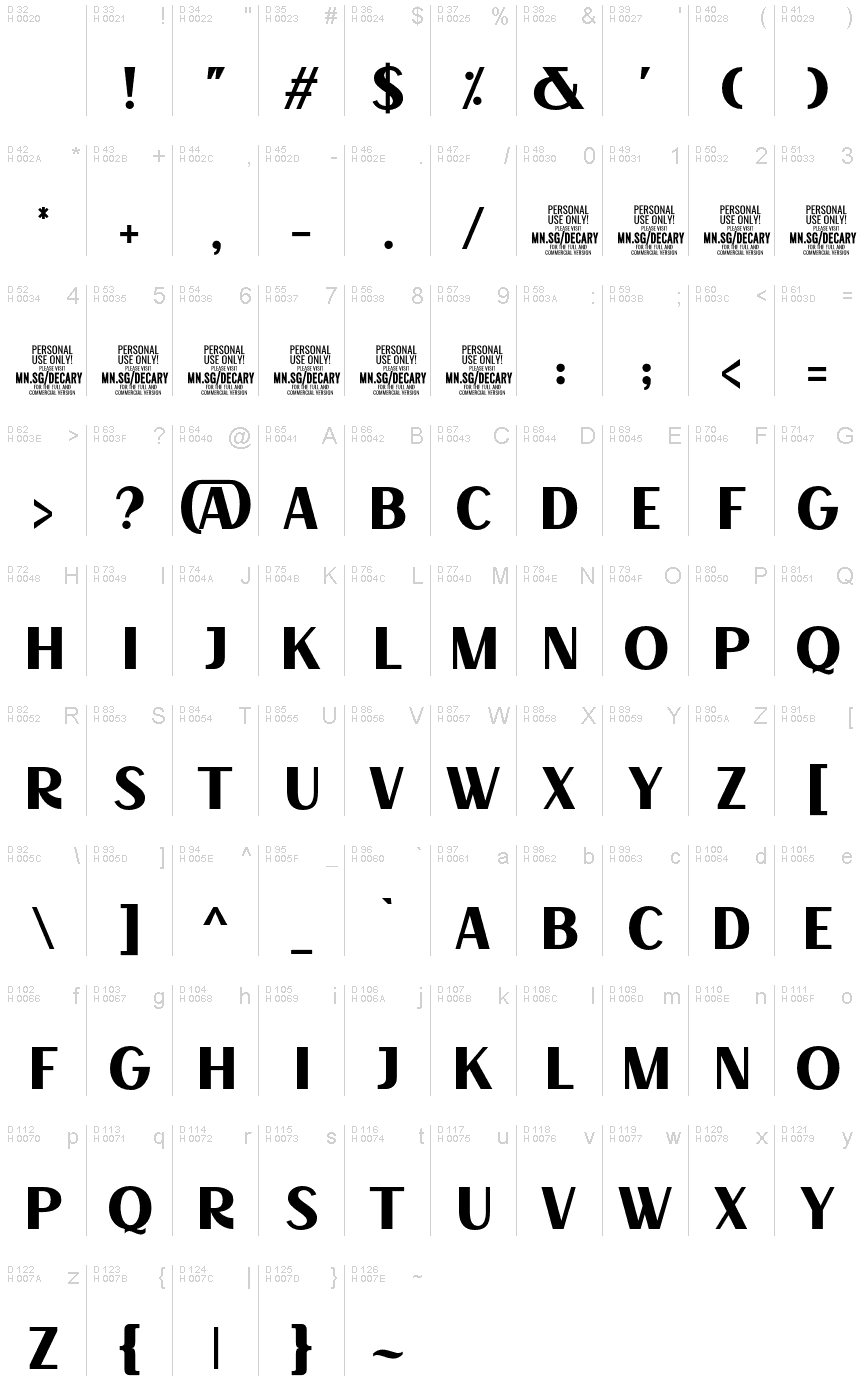
Decary Sans PERSONAL USE Regular
Introducing Decary Sans, a bold retro sans serif font designed by Mans Greback. Perfect for giving your projects a vintage vibe, Decary Sans can be used on posters, logos, magazines, and more!